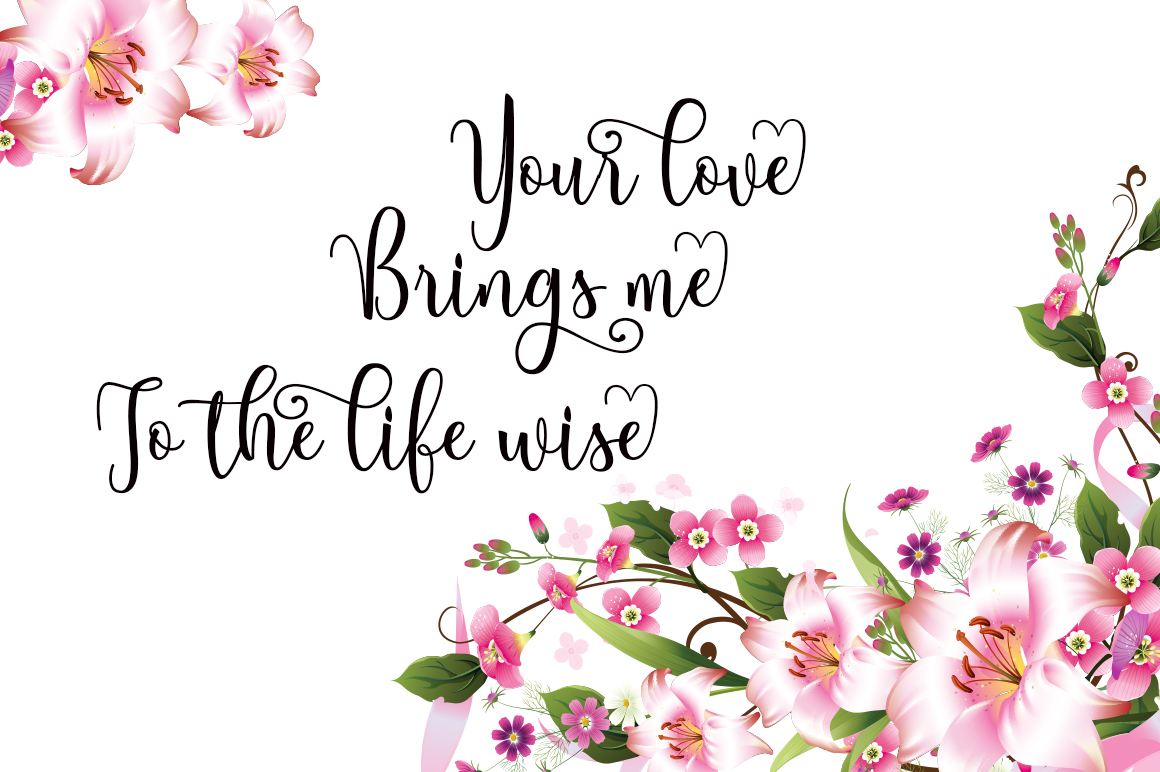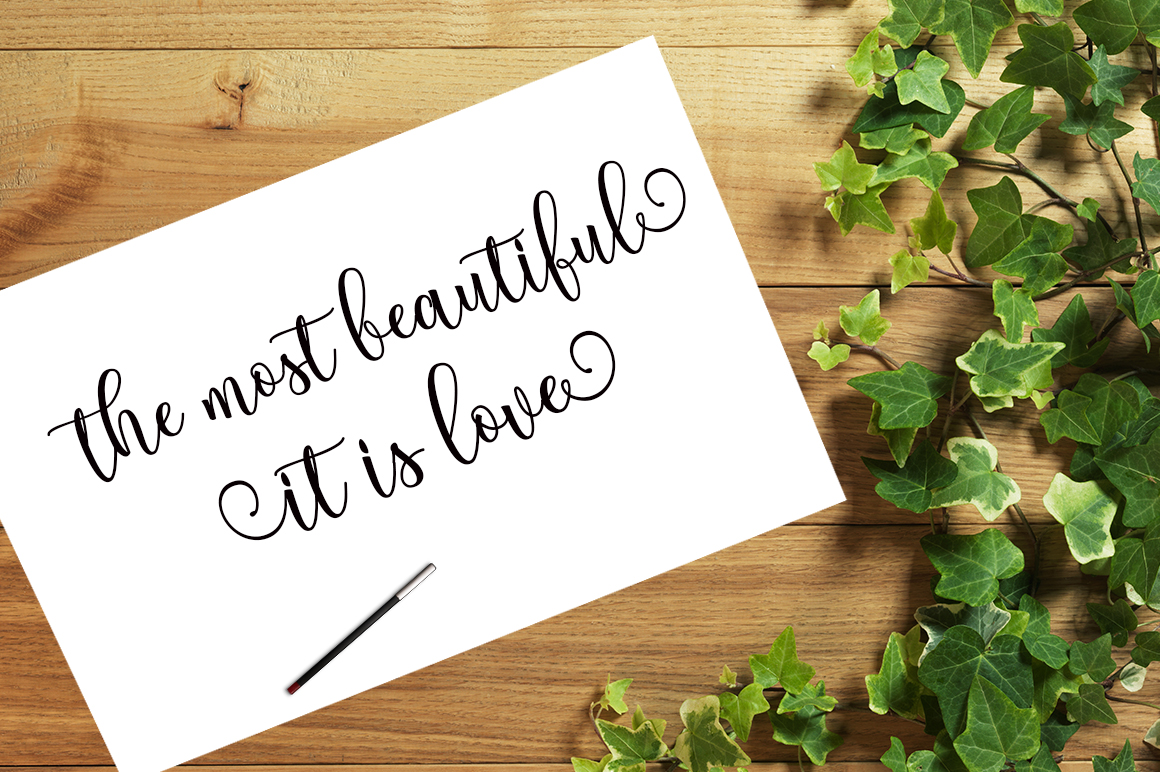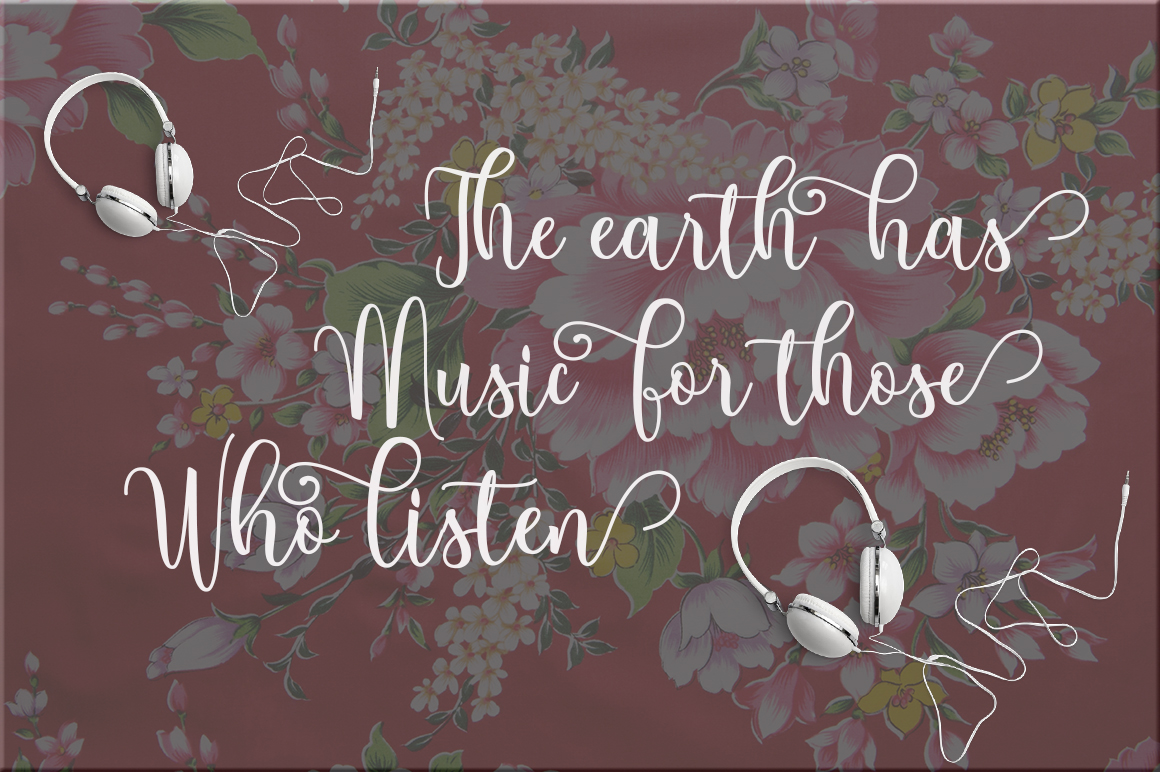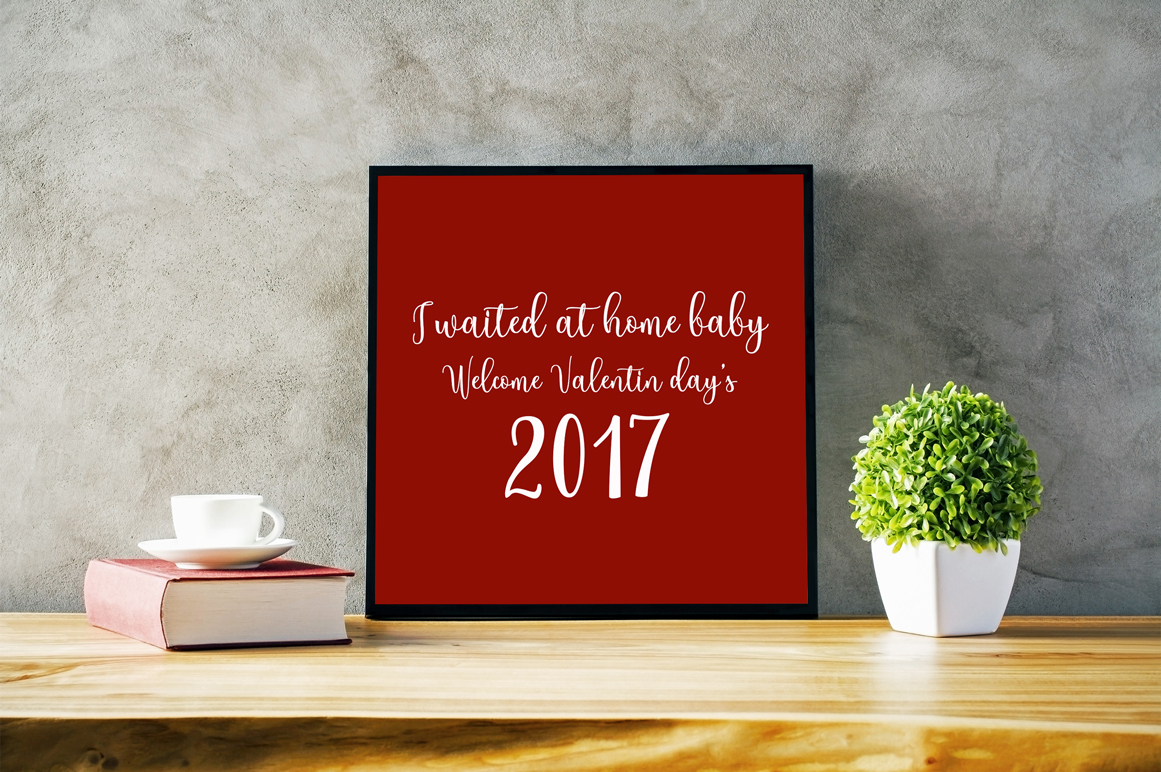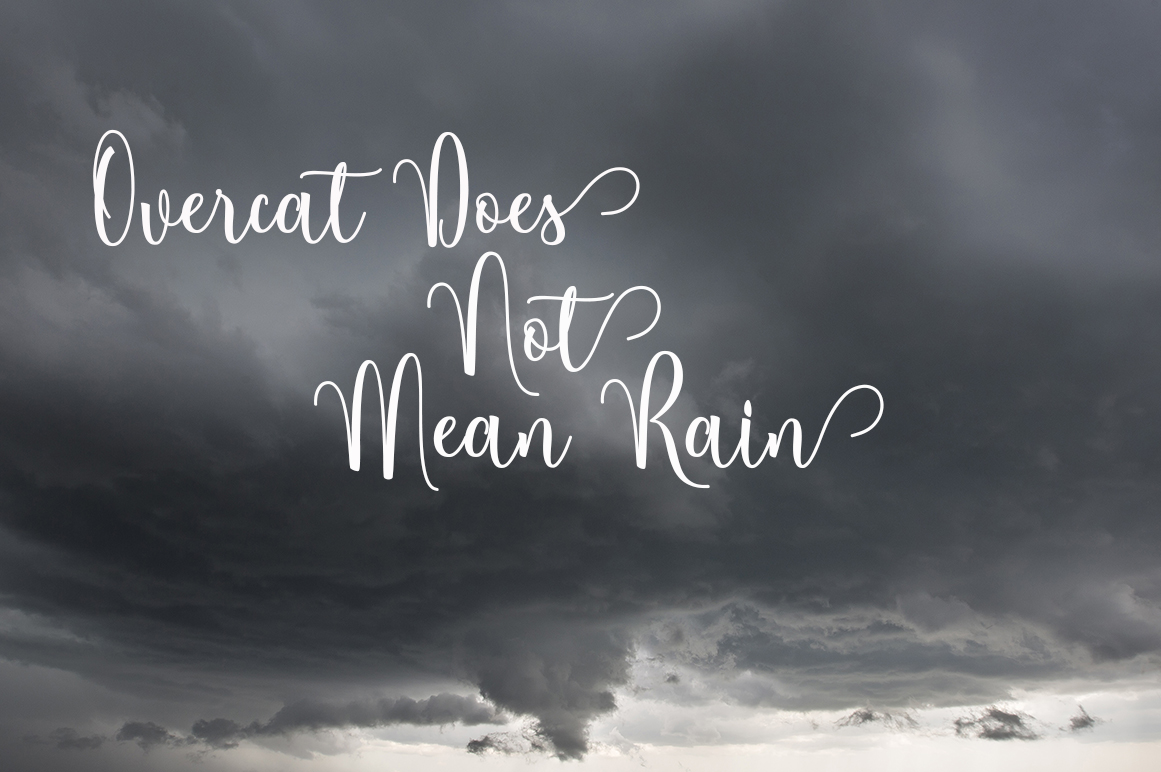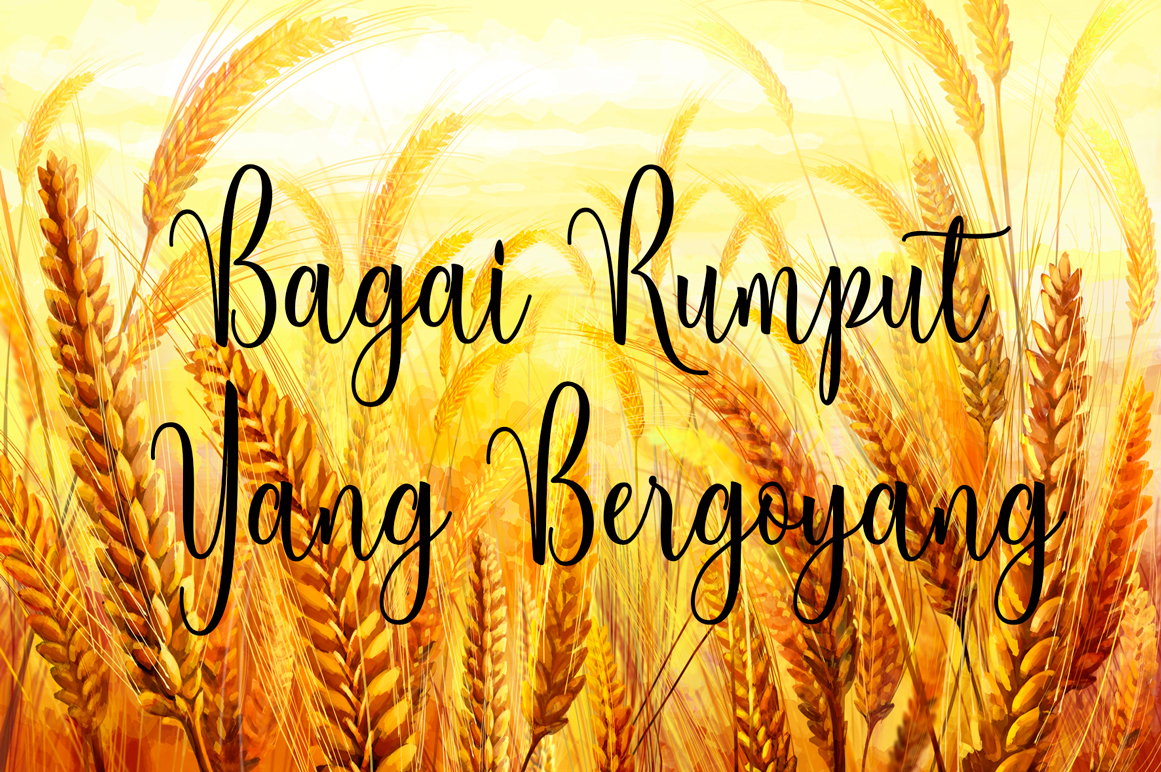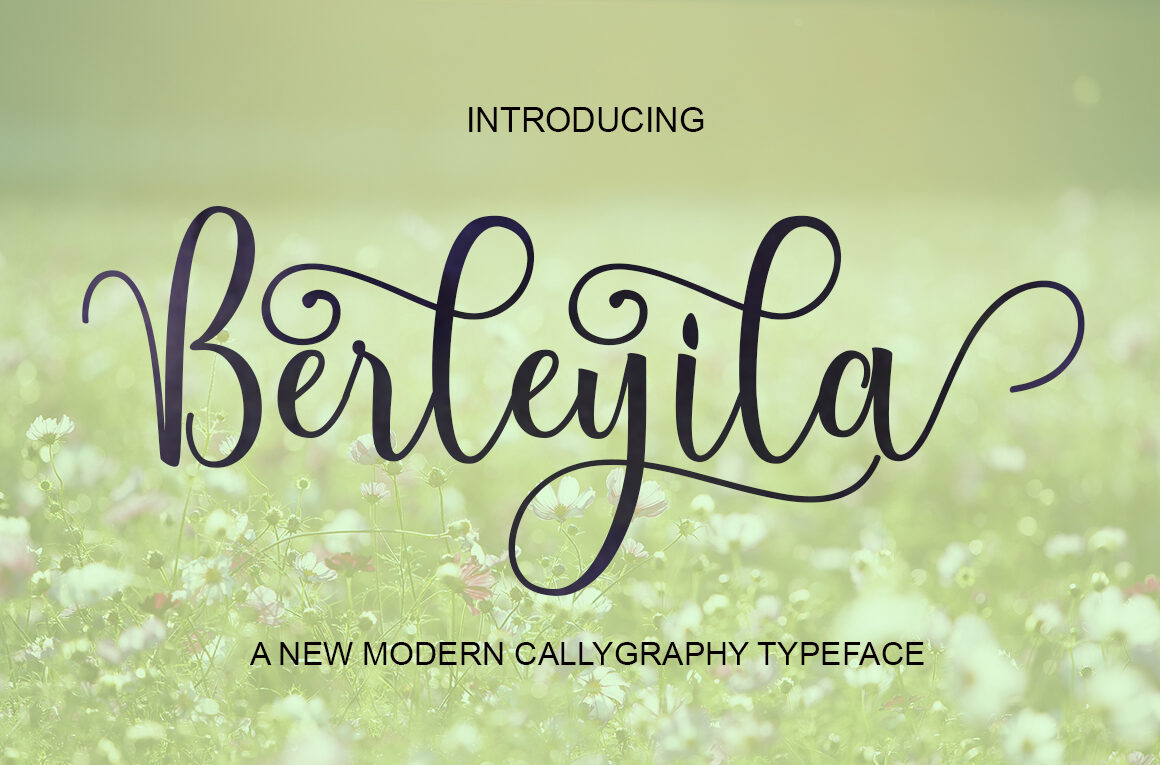
Introducing Berleyila Font: The Elegant Modern Calligraphy Font
Berleyila Font is a stunning modern calligraphy font that has taken the design world by storm. Created by the renowned Polem foundry, this beautiful font was designed completely by hand, giving it a unique and personal touch. In this article, we’ll dive into the world of Berleyila Font, exploring its features, benefits, and uses, making it a must-read for designers and crafters alike.
The Story Behind Berleyila Font
Berleyila Font is a brainchild of the Polem foundry, a team of skilled designers passionate about creating high-quality fonts. The font’s design process involved meticulous hand-crafting, ensuring that every letter, curve, and line is a work of art. This attention to detail and dedication to craftsmanship has resulted in a font that exudes elegance and sophistication.
Key Features of Berleyila Font
Berleyila Font boasts several impressive features that make it a standout in the world of calligraphy fonts. Some of its key features include:
- Modern Calligraphy Style: Berleyila Font embodies the essence of modern calligraphy, with flowing lines, elegant curves, and a touch of sophistication.
- Hand-Designed: Every letter and character in Berleyila Font was designed by hand, giving it a unique and personal feel.
- High-Quality: The font is built with high-quality craftsmanship, ensuring that it looks stunning in any design or project.
- Versatile: Berleyila Font is perfect for a wide range of design projects, from wedding invitations and stationery to branding and advertising.
Benefits of Using Berleyila Font
Berleyila Font offers numerous benefits to designers and crafters, making it an excellent addition to any design arsenal. Some of the benefits include:
- Elegance and Sophistication: Berleyila Font adds a touch of elegance and sophistication to any design project, making it perfect for high-end branding and advertising.
- Uniqueness: The font’s hand-designed nature ensures that it stands out from the crowd, giving your designs a unique and distinctive look.
- Readability: Berleyila Font is designed to be highly readable, making it perfect for body text, headings, and titles.
- Customizability: The font’s versatility allows for endless customization options, making it easy to adapt to your design style.
Uses of Berleyila Font
Berleyila Font is an incredibly versatile font that can be used in a wide range of design projects, including:
- Wedding Invitations and Stationery: Add a touch of elegance and sophistication to your wedding invitations, stationery, and other paper goods.
- Branding and Advertising: Use Berleyila Font to create stunning brand identities, advertisements, and marketing materials.
- Packaging Design: Elevate your packaging design with Berleyila Font, adding a touch of luxury and sophistication to your products.
- Digital Design: Use Berleyila Font in digital designs, such as website headers, social media graphics, and email newsletters.
Berleyila Font is a breathtaking modern calligraphy font that is sure to captivate designers and crafters alike. With its hand-designed nature, elegant style, and versatility, it’s the perfect addition to any design project. Whether you’re looking to add a touch of sophistication to your branding, create stunning wedding invitations, or elevate your packaging design, Berleyila Font is an excellent choice. So why wait? Discover the beauty of Berleyila Font and take your designs to the next level.